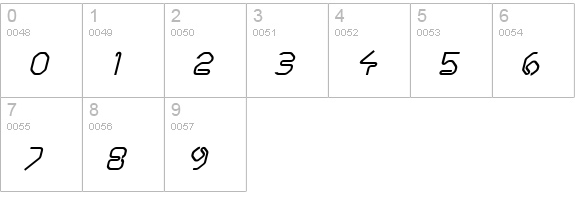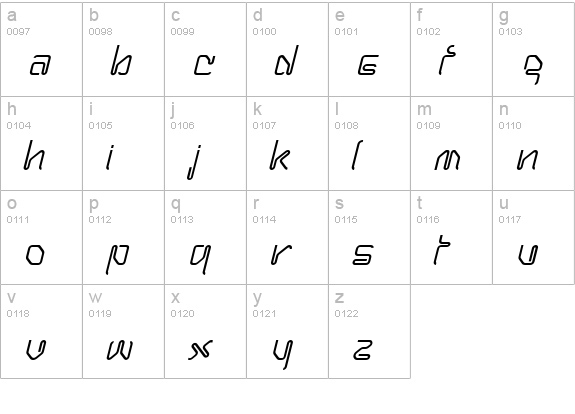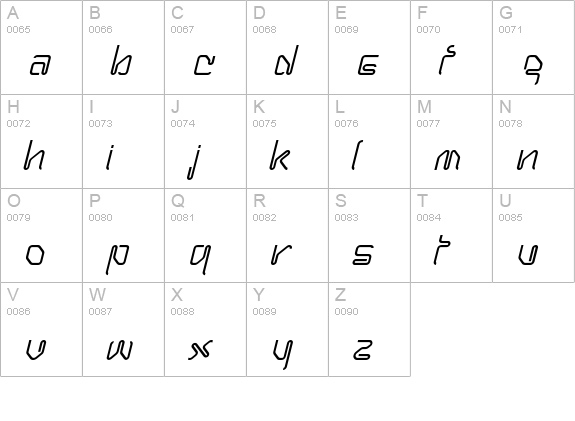
Hanger Italic is a distinctive, italic variant in the Hanger typeface family \xE2\x80\x94 well suited to design and typography projects.
Hanger Italic is a captivating and versatile font that effortlessly combines elegance and modernity. With its sleek and fluid lines, this typeface exudes a sense of sophistication and style. Its slanted and slightly italicized design adds a touch of dynamic energy, making it perfect for projects that require a contemporary and edgy look. This font is ideal for various design purposes, from branding and logo designs to website headers and social media graphics. Its unique and eye-catching letterforms are sure to make a lasting impression on any viewer. One of the best features of Hanger Italic is that it is available for free download at FontsMarket.com. This means that you can easily access and utilize this font without any cost. Whether you are a professional designer or a creative enthusiast, this font offers you the opportunity to enhance your projects with its distinct and alluring aesthetic. So, if you are searching for a font that effortlessly merges elegance with a contemporary twist, Hanger Italic is the perfect choice. Download it for free at FontsMarket.com and unleash your creativity with this stunning and versatile typeface.